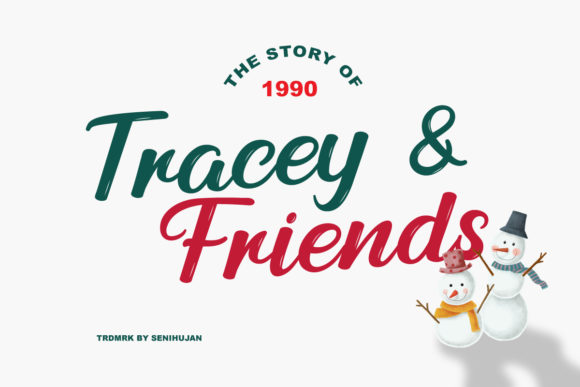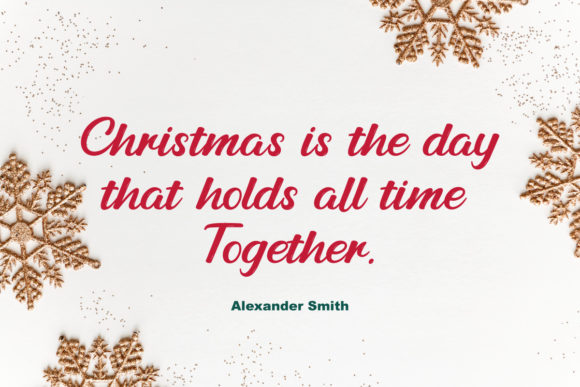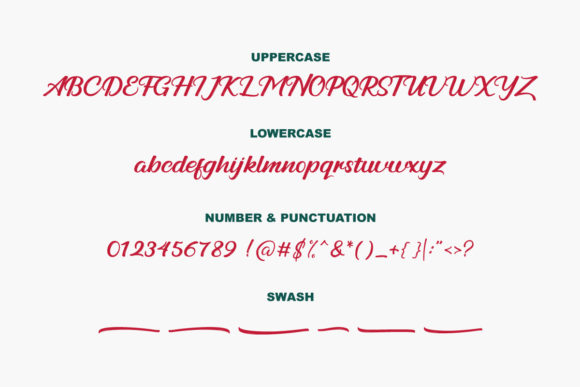
Introducing Chris Bold Font: A Timeless Handwritten Masterpiece
In the world of typography, a good font can make all the difference in creating visually stunning designs. For designers and crafters looking for a unique and captivating font, Chris Bold Font is an excellent choice. This lovely and timeless handwritten font is perfect for creating eye-catching logos, branding, and quotes that leave a lasting impression.
What Makes Chris Bold Font Special?
Chris Bold Font stands out from the rest due to its distinctive handwritten style, which exudes a sense of warmth and personality. Its elegant and flowing lines make it an ideal choice for designs that require a touch of sophistication and elegance. Whether you’re working on a logo, branding, or quote, Chris Bold Font is sure to add a professional and polished touch.
One of the most significant advantages of Chris Bold Font is its PUA (Private Use Area) encoding. This means that you can access all glyphs and swashes with ease, giving you greater flexibility and creative control over your designs. With PUA encoding, you can effortlessly navigate through the font’s extensive character set, including alternative letters, ligatures, and ornaments.
Chris Bold Font is a versatile font that caters to the needs of both designers and crafters. Its wide range of applications makes it an excellent addition to any design arsenal. Here are some ways you can use Chris Bold Font:
- Logo Design: Create stunning logos that capture the essence of your brand with Chris Bold Font’s elegant and distinctive style.
- Branding: Establish a strong brand identity with Chris Bold Font’s unique and recognizable typography.
- Quotes and Posters: Add a touch of sophistication and elegance to your quotes and posters with Chris Bold Font’s flowing lines and beautiful letterforms.
- Digital Crafts:
Tips for Using Chris Bold Font
To get the most out of Chris Bold Font, here are some valuable tips:
- Pair it with Other Fonts: Experiment with pairing Chris Bold Font with other complementary fonts to create visually striking designs.
- Play with Glyphs and Swashes: Take advantage of Chris Bold Font’s PUA encoding to access a wide range of glyphs and swashes, adding a personal touch to your designs.
- Use it for Headings and Titles: Chris Bold Font is perfect for headings and titles, adding a touch of elegance and sophistication to your designs.
In conclusion, Chris Bold Font is a timeless handwritten font that offers a unique and captivating style, perfect for designers and crafters looking to create stunning designs. Its PUA encoding makes it easy to access glyphs and swashes, giving you greater creative control. With its versatility and range of applications, Chris Bold Font is an excellent addition to any design arsenal.